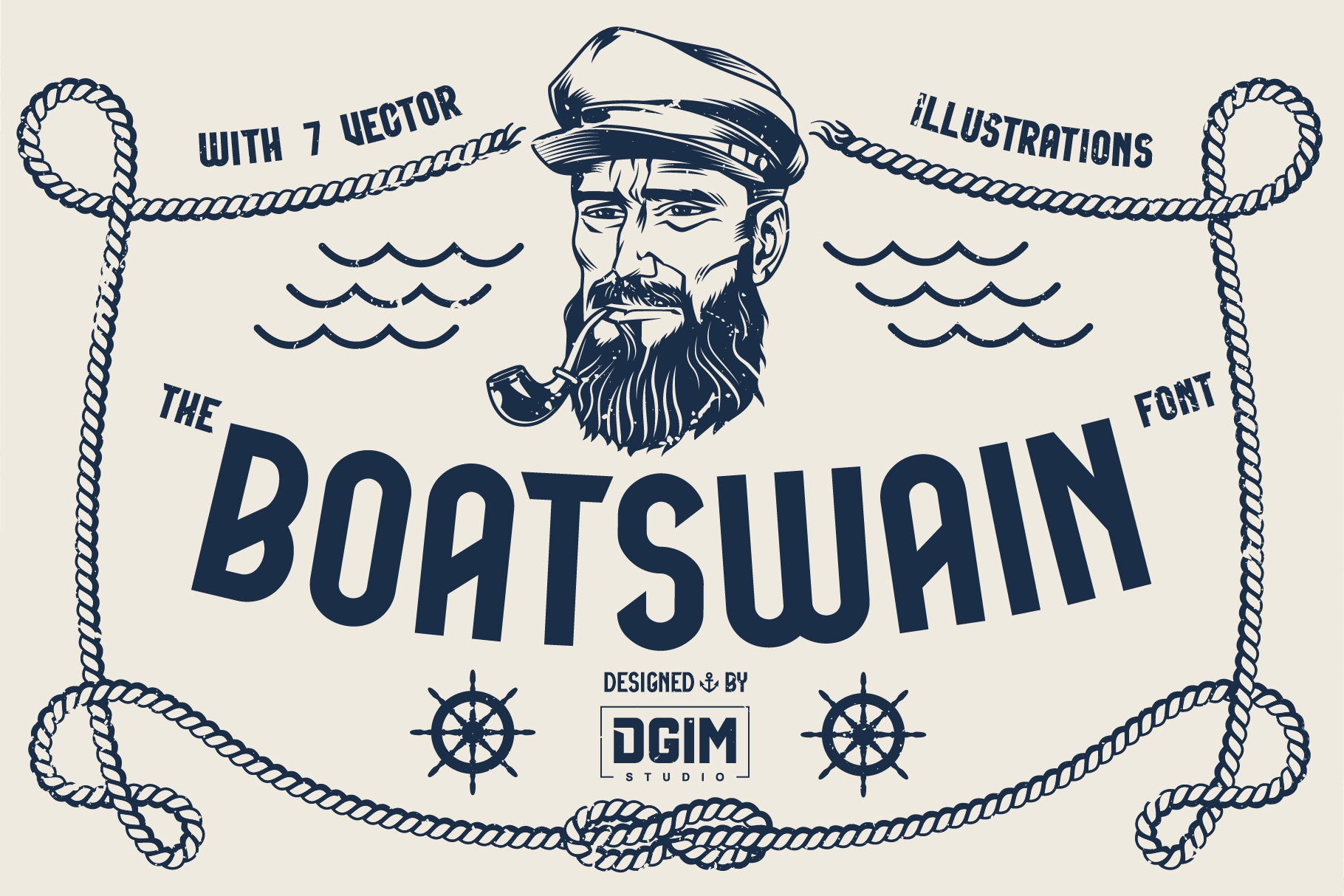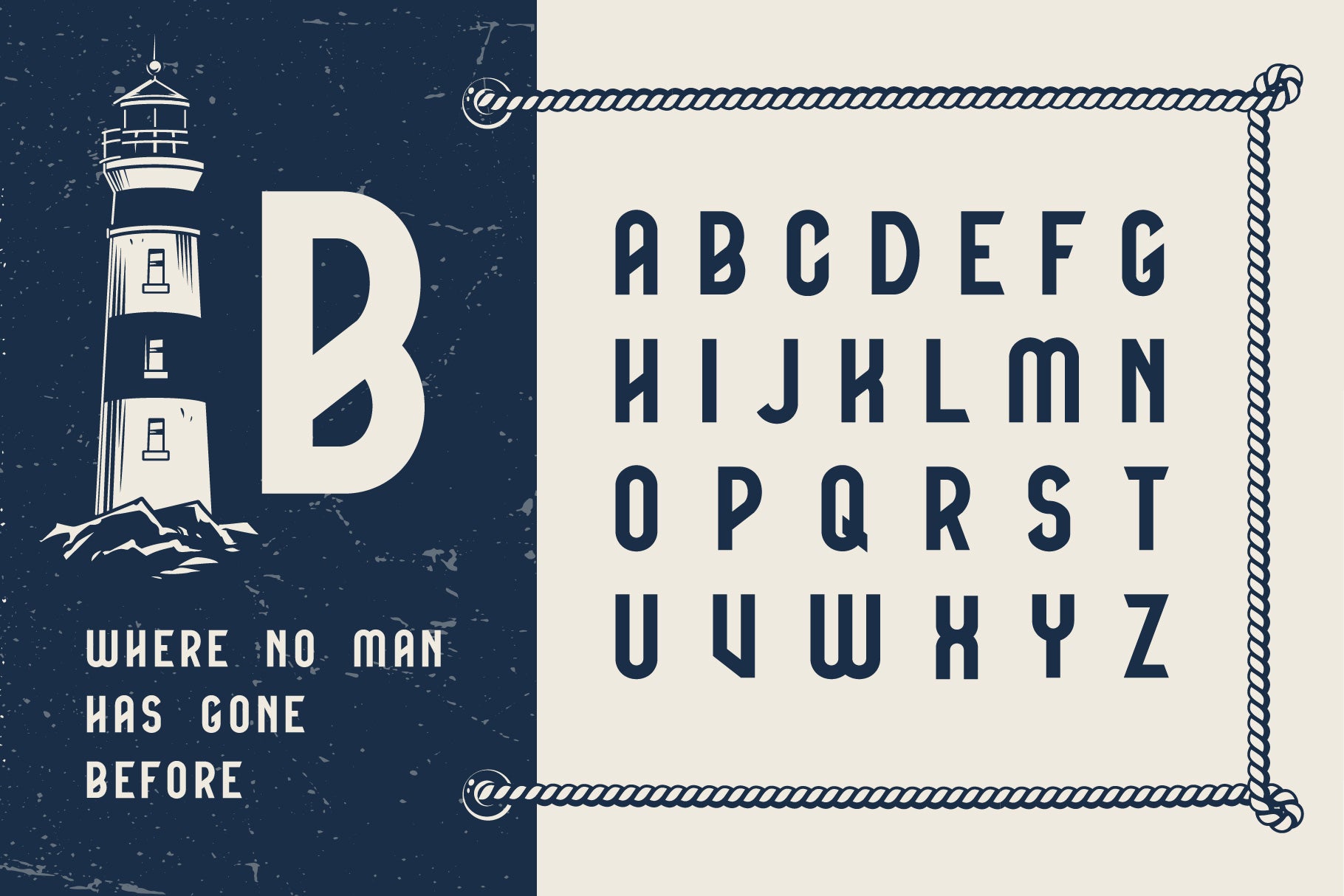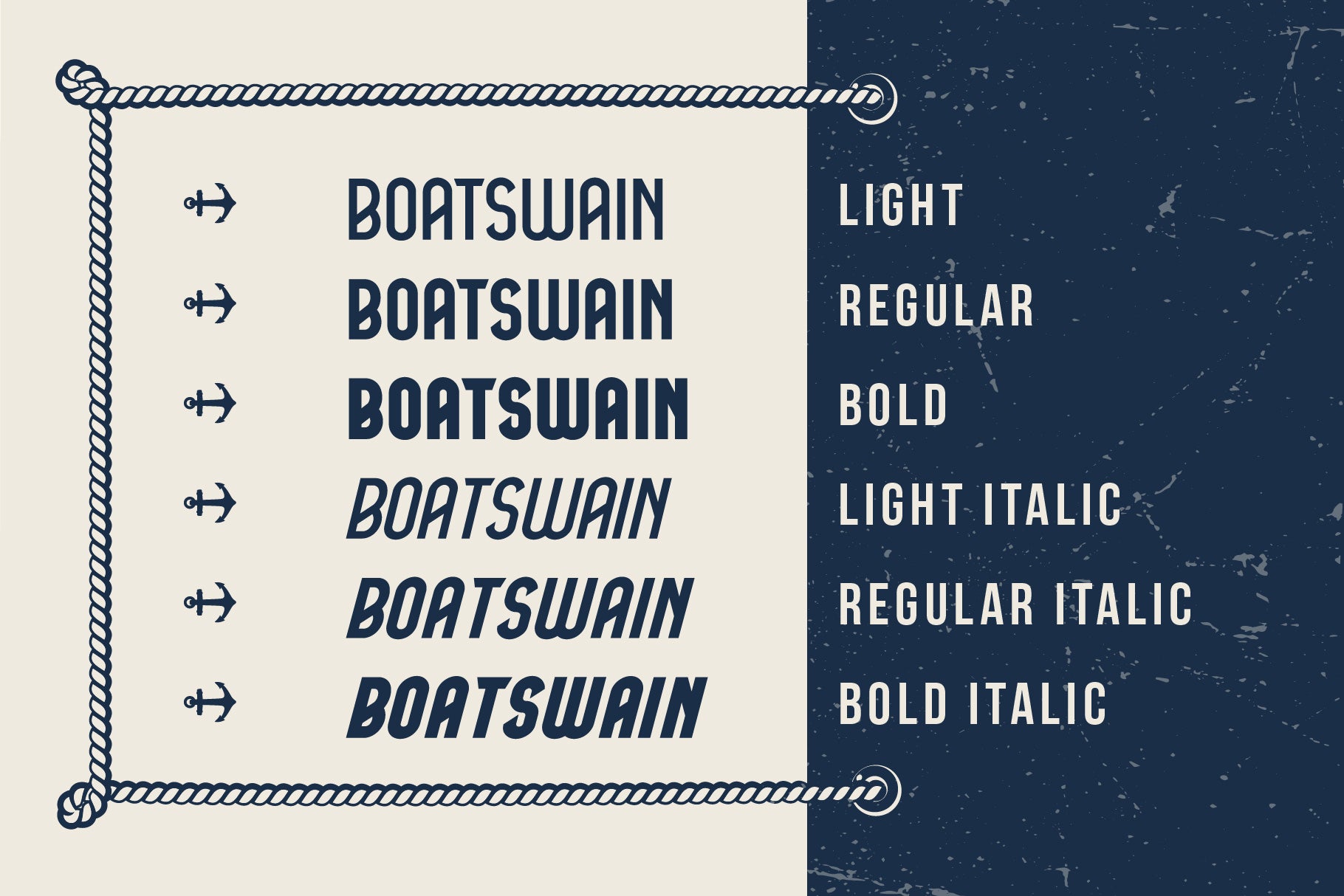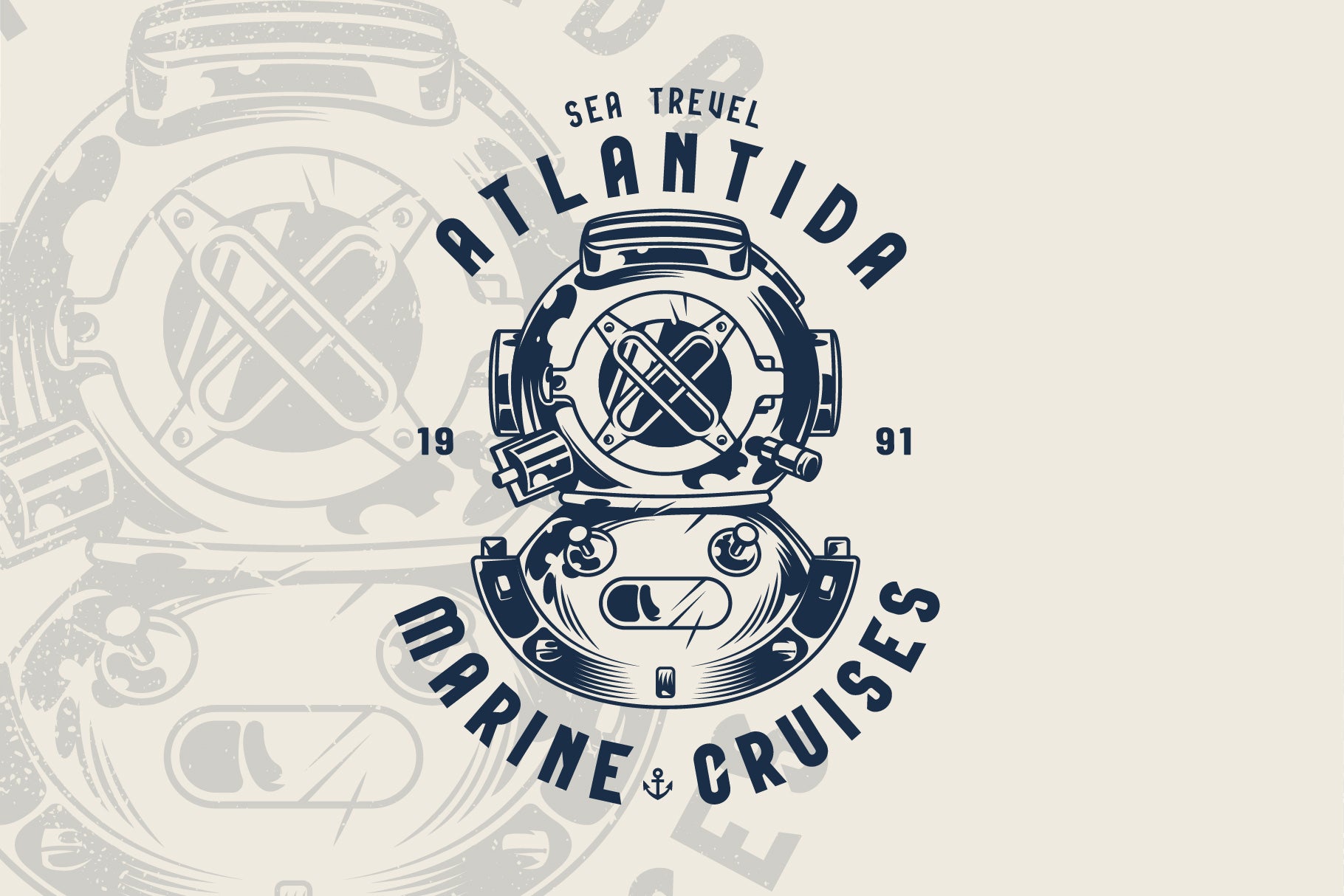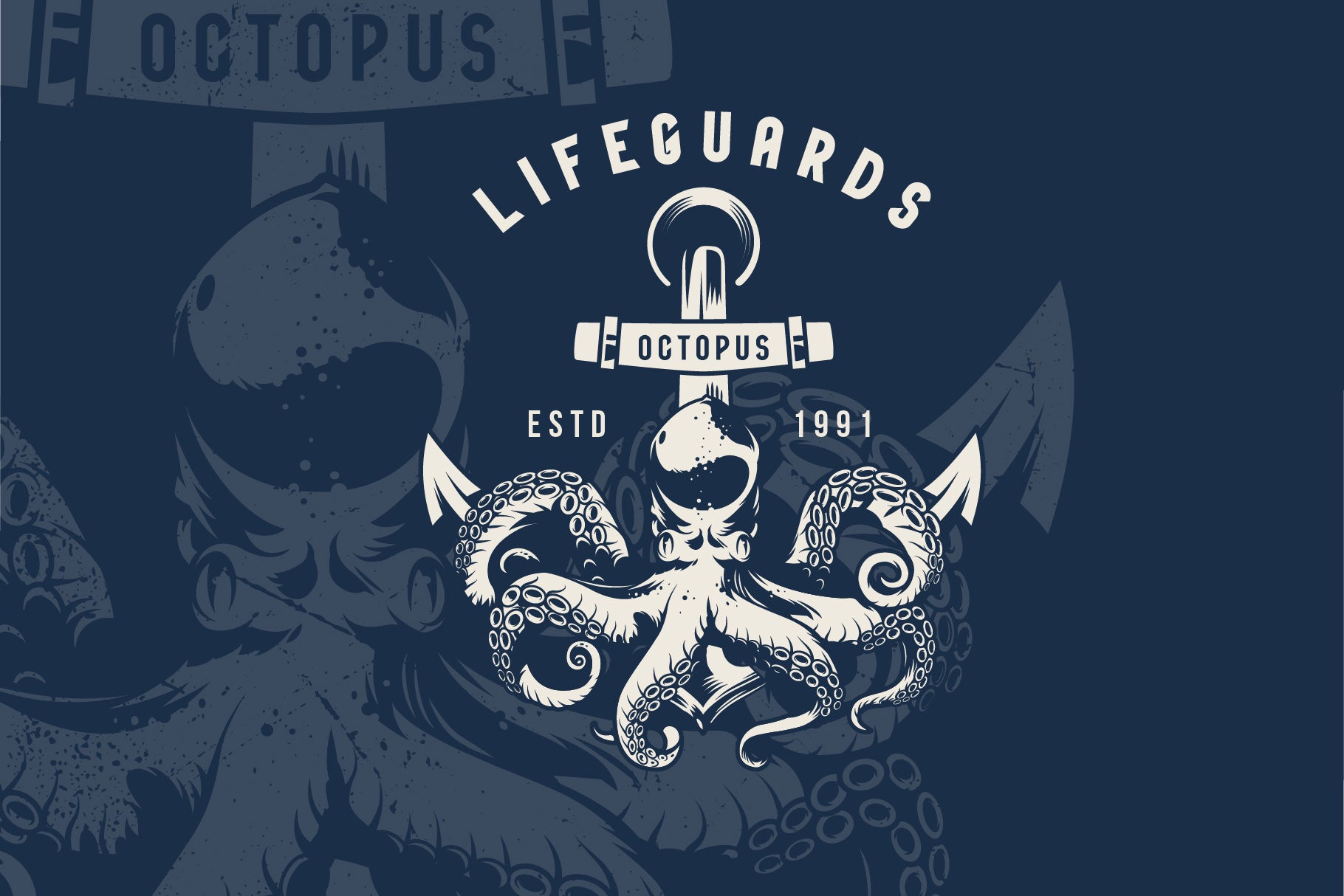
Boatswain – Nautical Typeface + Bonus Vector Illustrations
A distinctive nautical typeface inspired by maritime heritage, ocean voyages, and classic seafaring aesthetics, combined with a set of bonus vector illustrations — perfect for branding, apparel, posters, and vintage-style design projects.
Boatswain blends strong, confident letterforms with subtle nautical character, making it ideal for designs that need a bold yet timeless maritime feel.
Inspired by sea travel, sailors, navigation symbols, and classic ocean typography, this font is designed for creators who want their typography to feel authentic, confident, and visually striking.
The typeface includes multiple weights and matching italic versions, offering flexibility for headlines, logos, labels, packaging, and editorial layouts.
Whether you’re working on a nautical brand identity, apparel graphics, poster designs, or vintage-inspired visuals, Boatswain delivers a solid typographic foundation with a true maritime spirit.
– Boatswain typeface
– Light, Regular, Bold
– Light Italic, Regular Italic, Bold Italic
– 7 bonus nautical vector illustrations inspired by sea and ocean themes